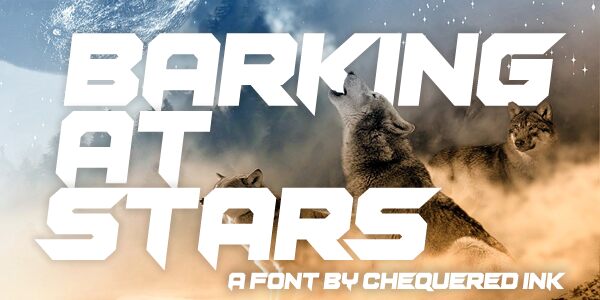
Barking at Stars
Introducing Barking at Stars, a bold, wide display font designed by Allison J James. Perfect for futuristic projects, this extraordinary font will give your designs a unique and modern edge. Use it to create eye-catching posters, logos and book covers that stand out from the crowd.